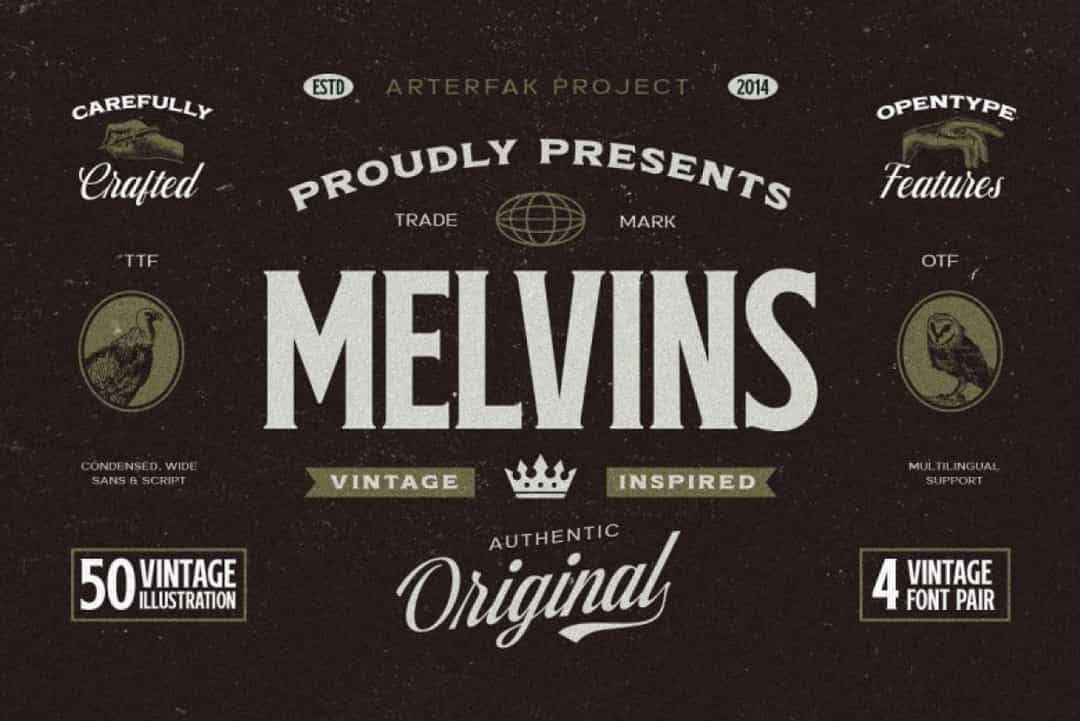
Melvins Font is our collection of fonts based around classic styles. Comprised of four fonts in distinct styles with distinct looks that combine beautifully, they make perfect pairs when used together and make for great pairings when used together. Specifically curated to evoke old-fashioned, vintage, and traditional sensibilities; Melvins contains Condensed Light, Condensed Expanded and script styles which can be utilized across numerous designs.